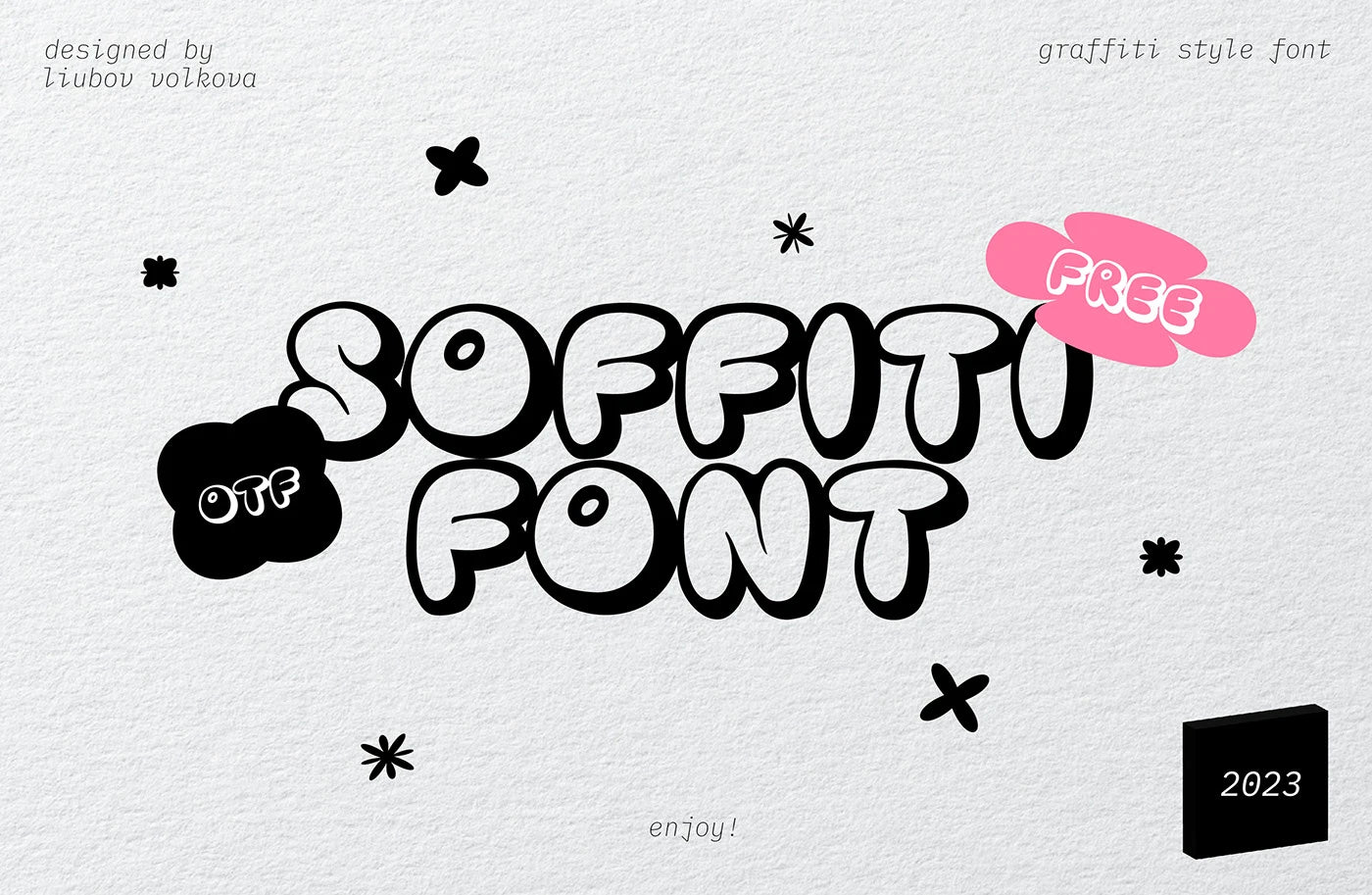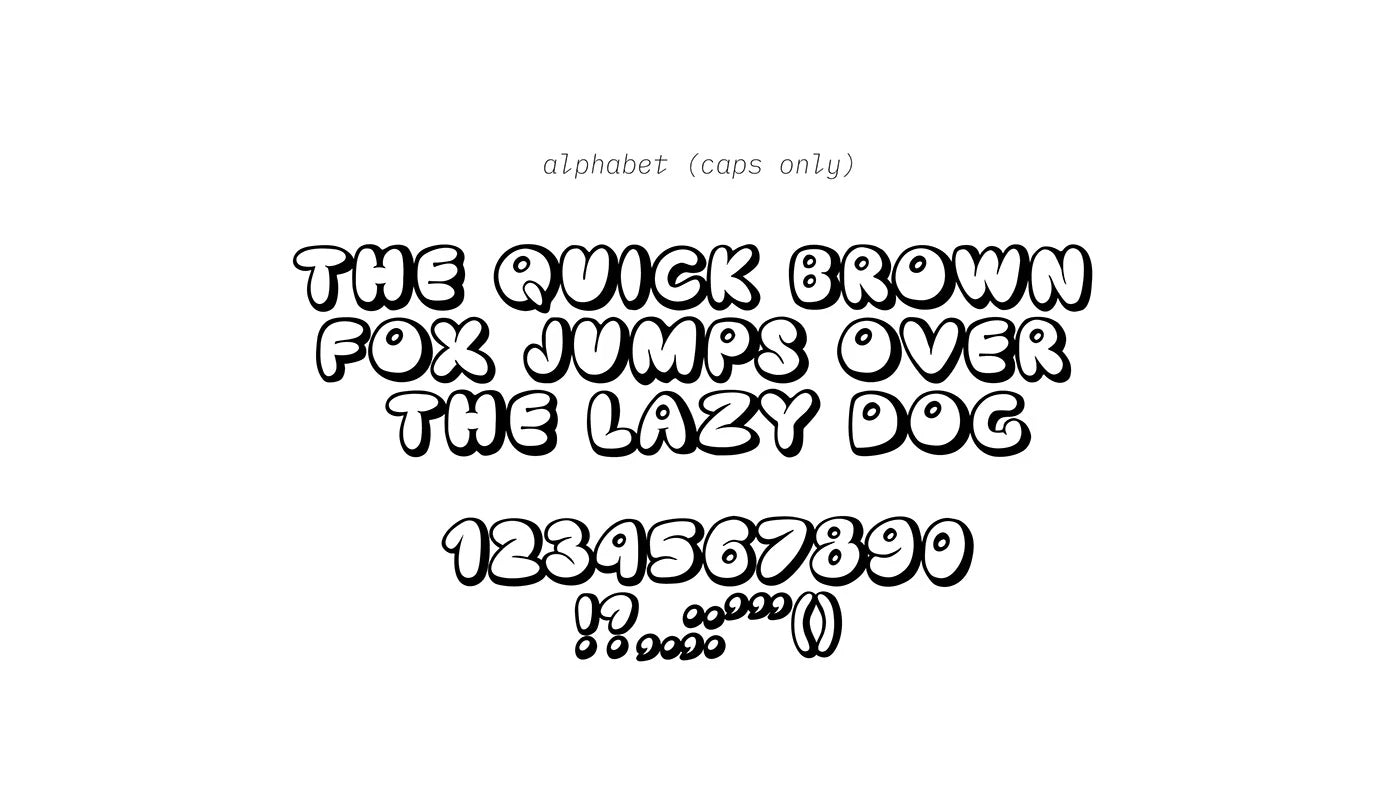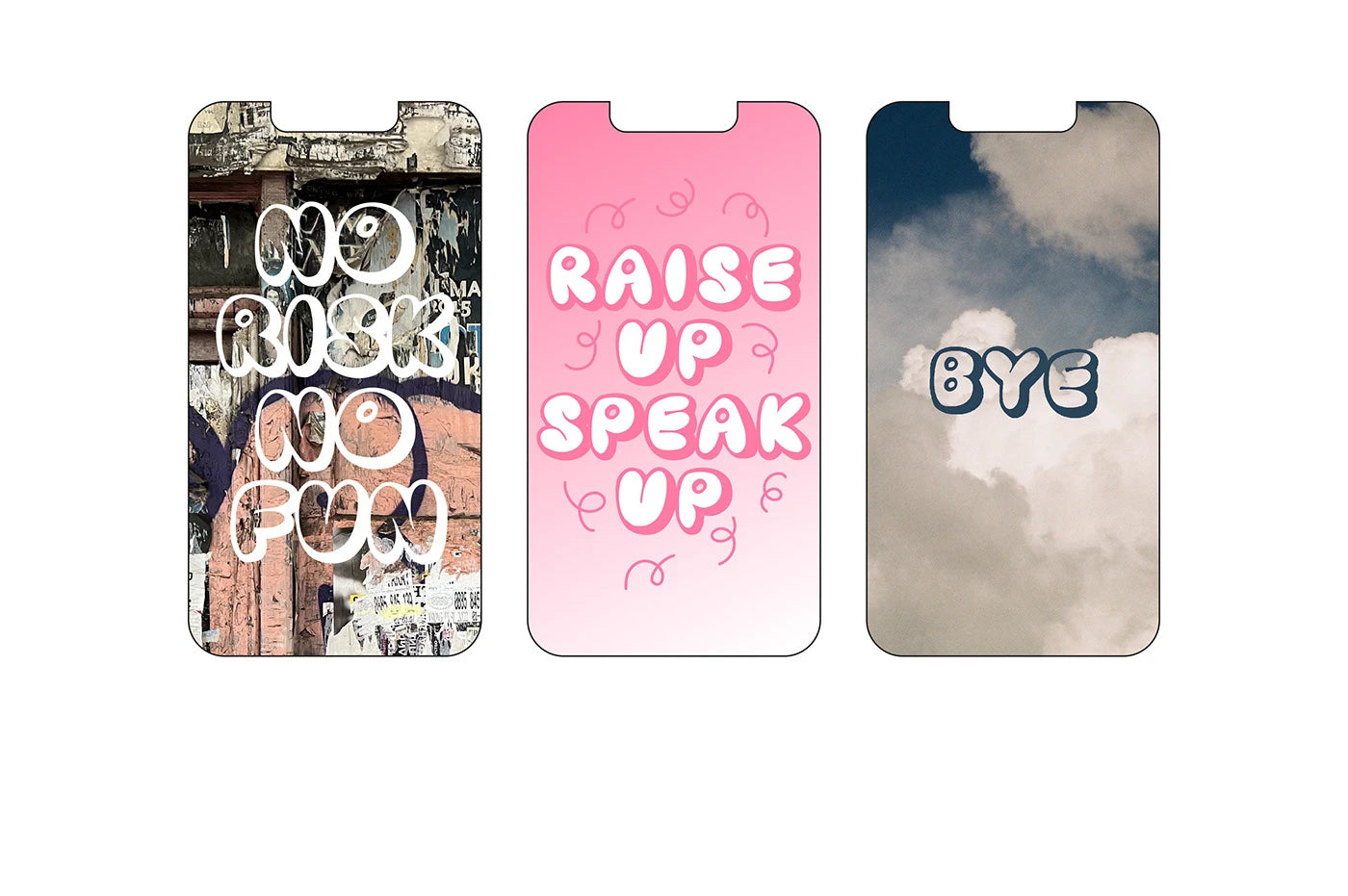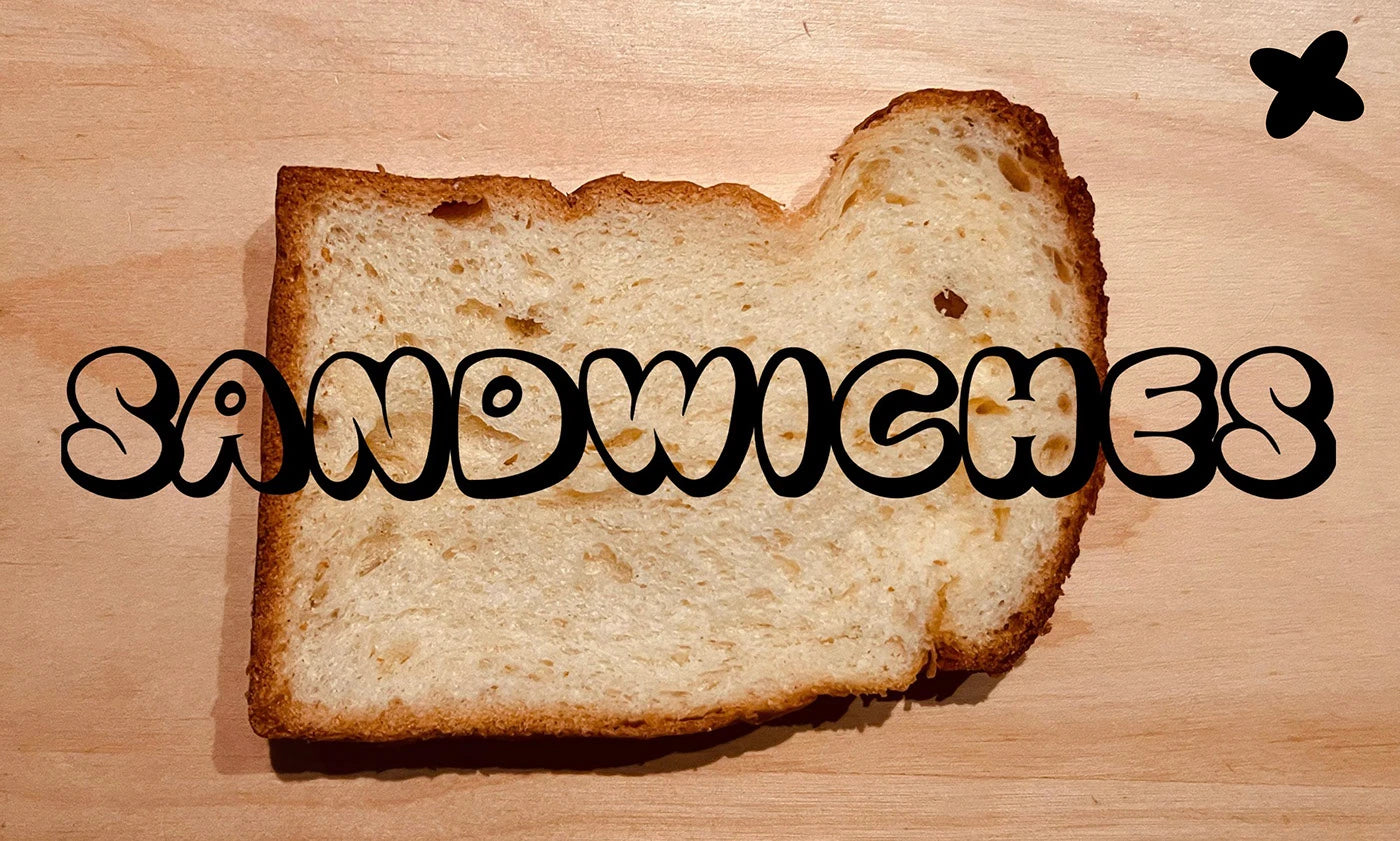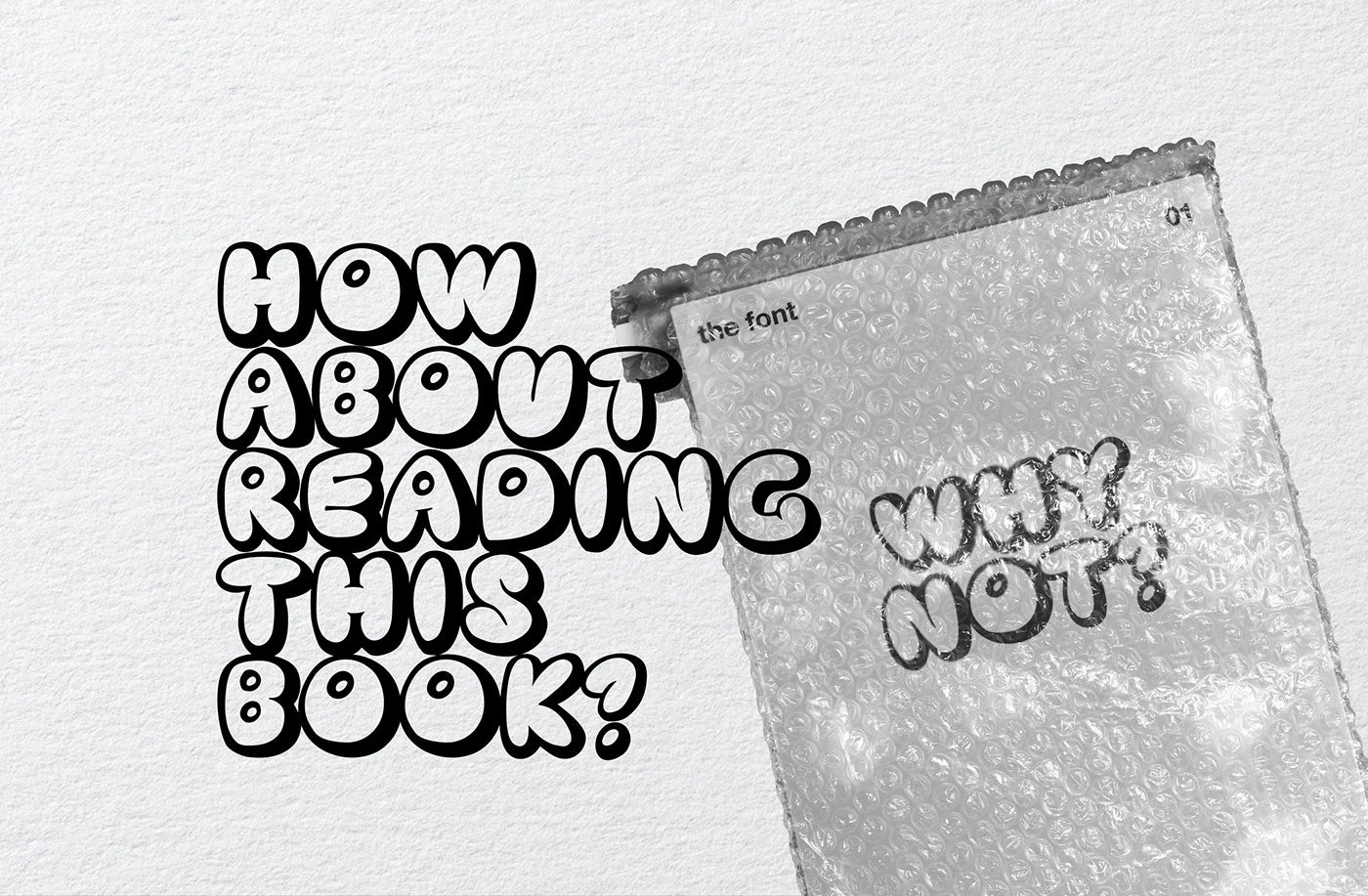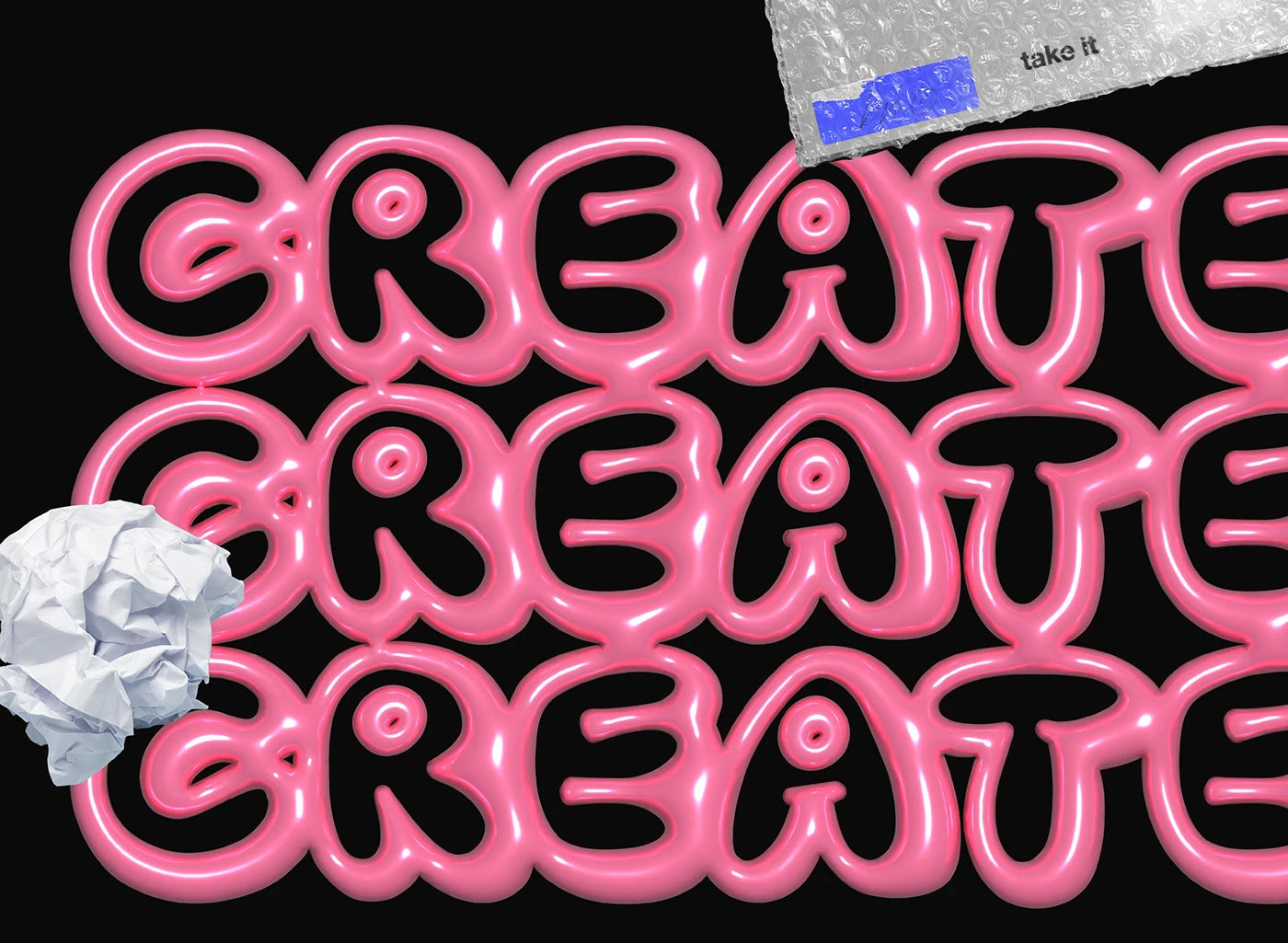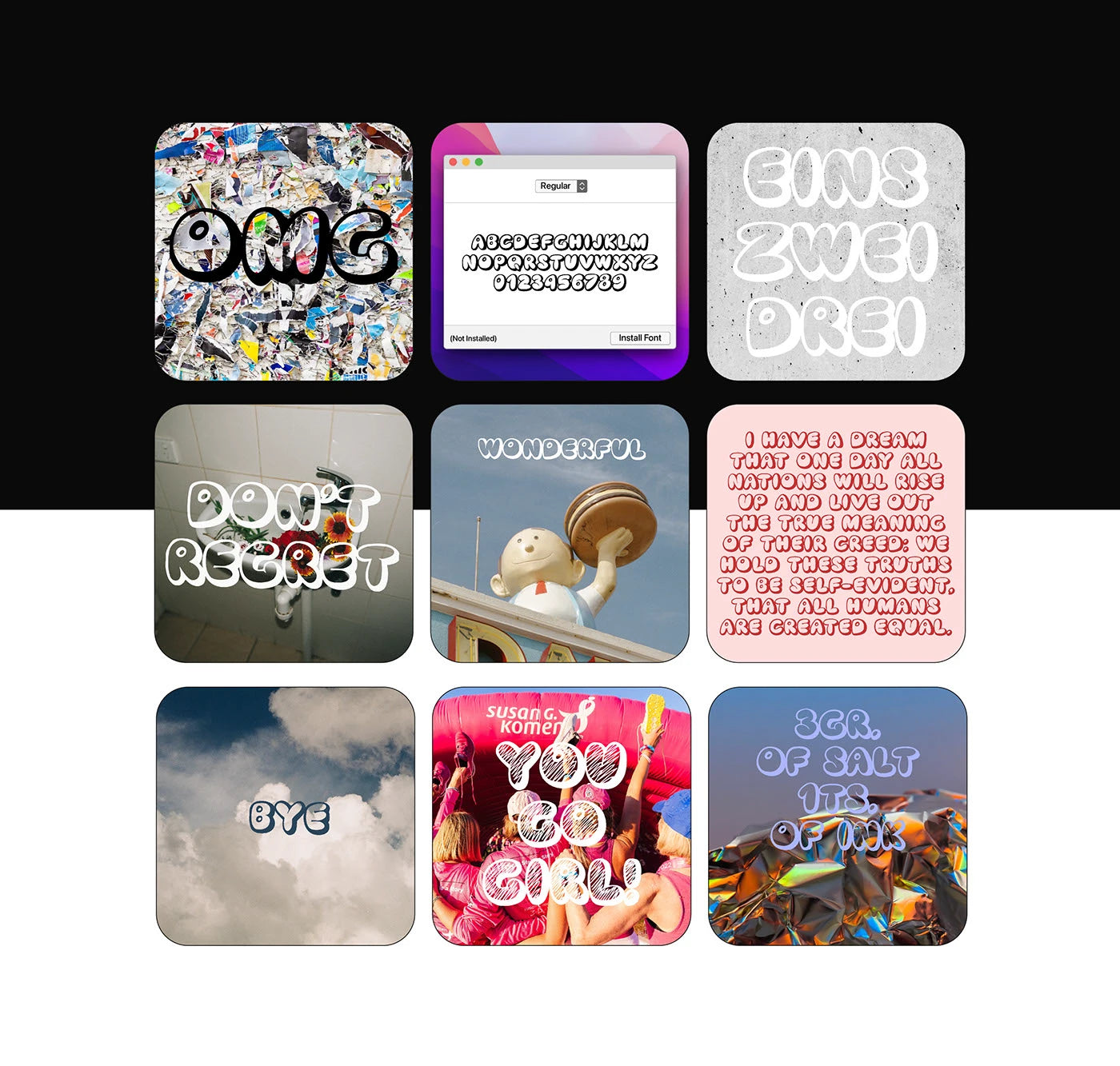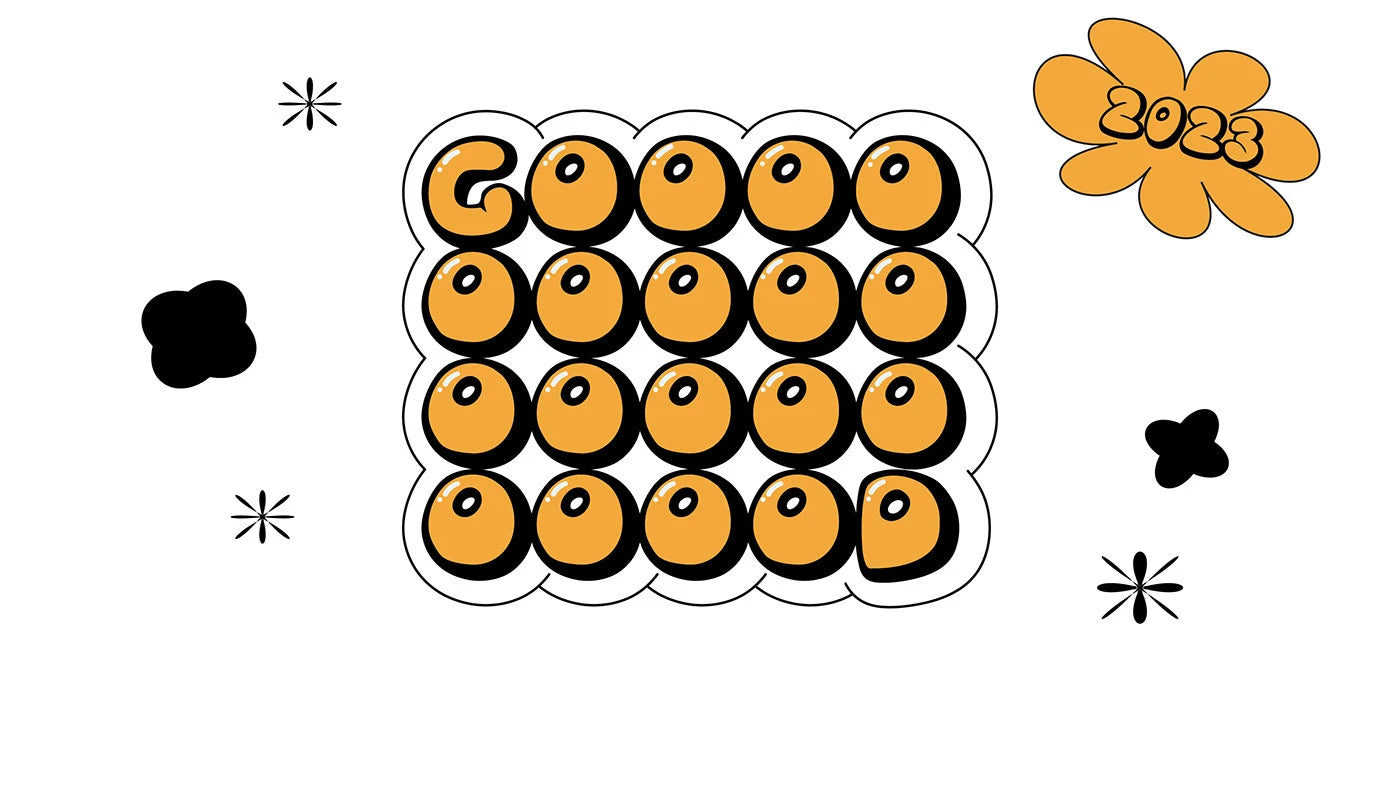
Soffiti - Free Bubble Graffiti Font
Introducing Soffiti - Free bubble graffiti font from creator Liubov Volkova.
"Recently I moved to Sofia, Bulgaria. Firstly I was so impressed and surprised
how many graffiti is everywhere in the city. There are many talented graffiti artists here,
as well as just tagging.
So I was inspired by the place and decided to try my best to create bubble graffiti style font. It is completely free for personal and commercial use. Please, enjoy, create and play!"